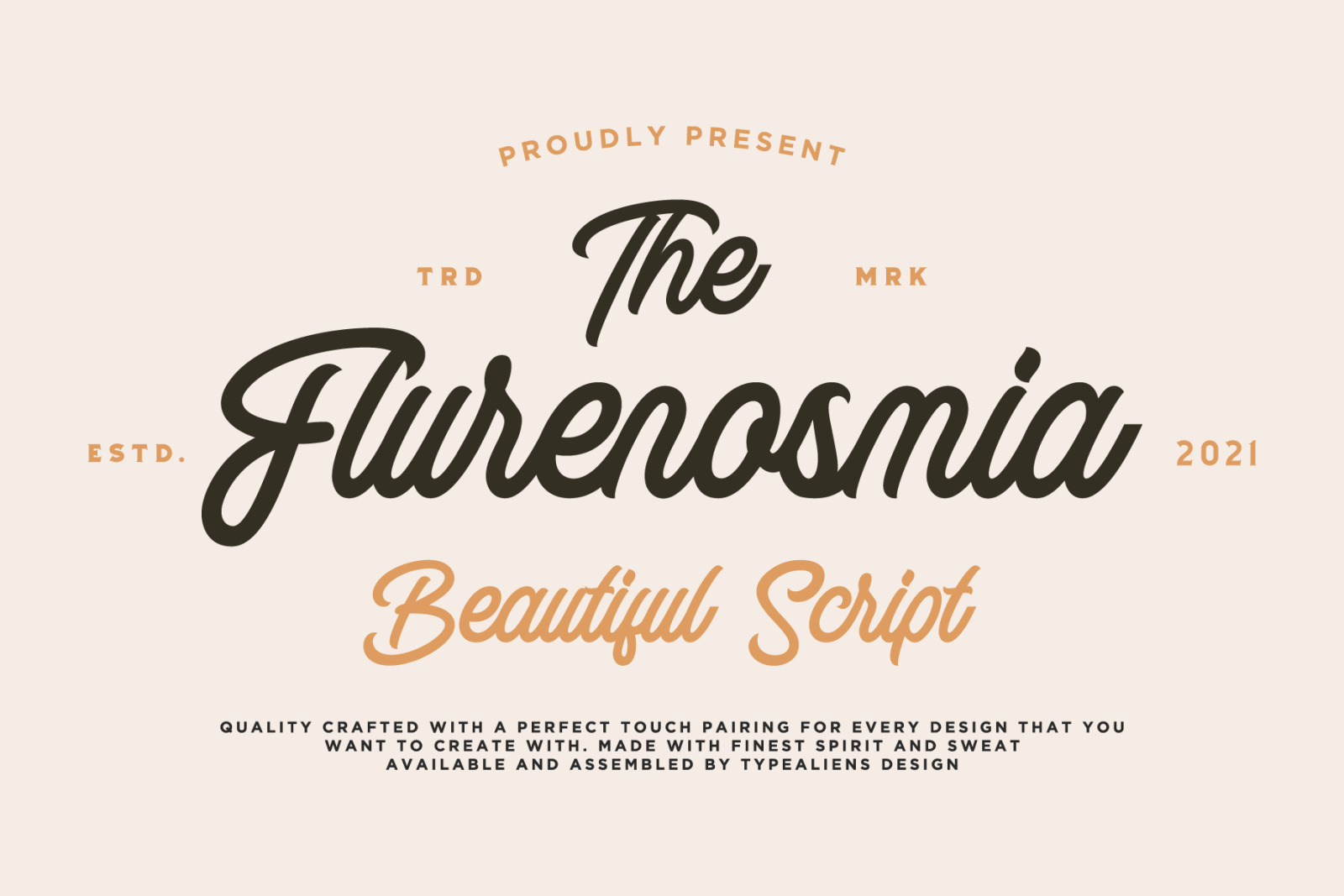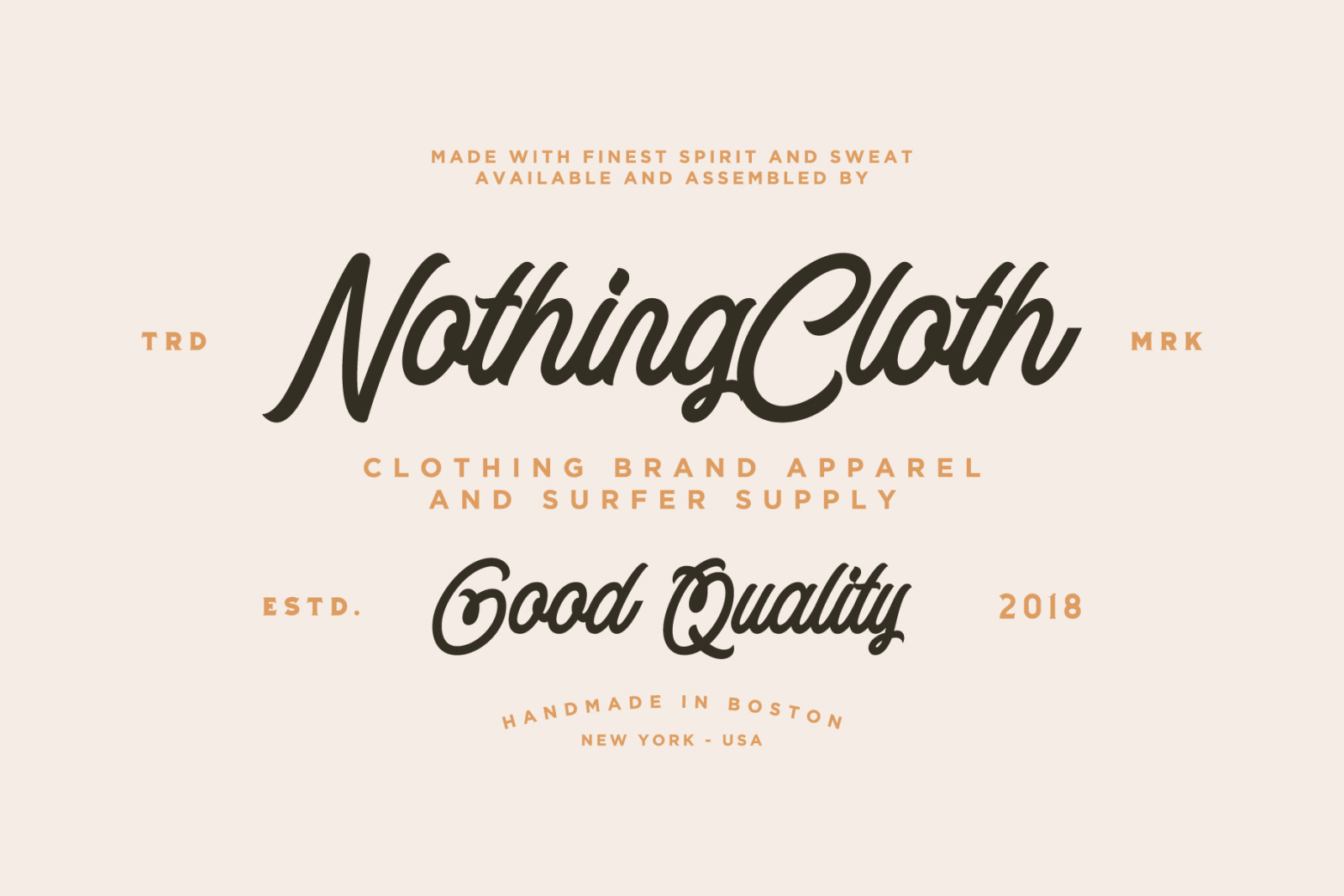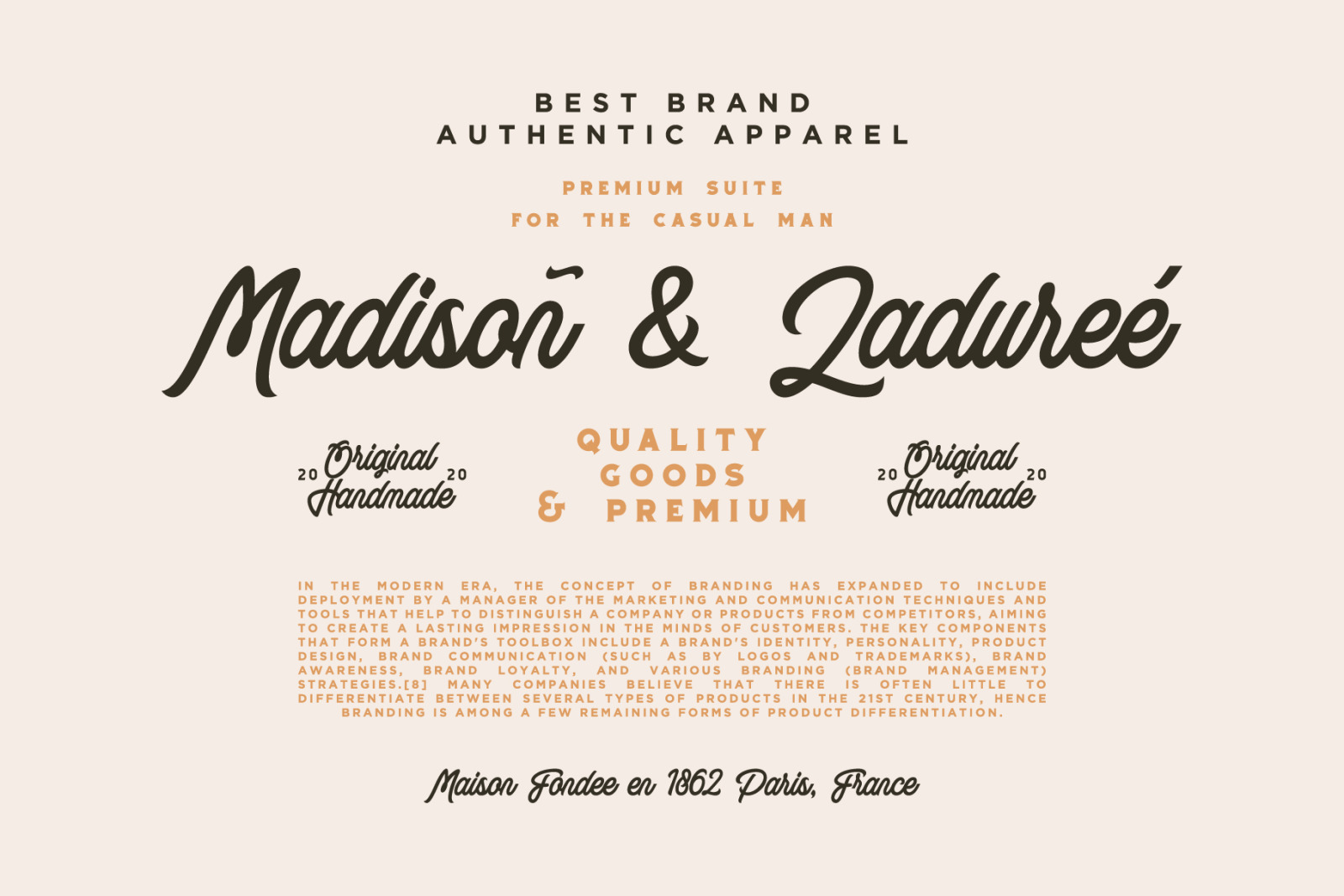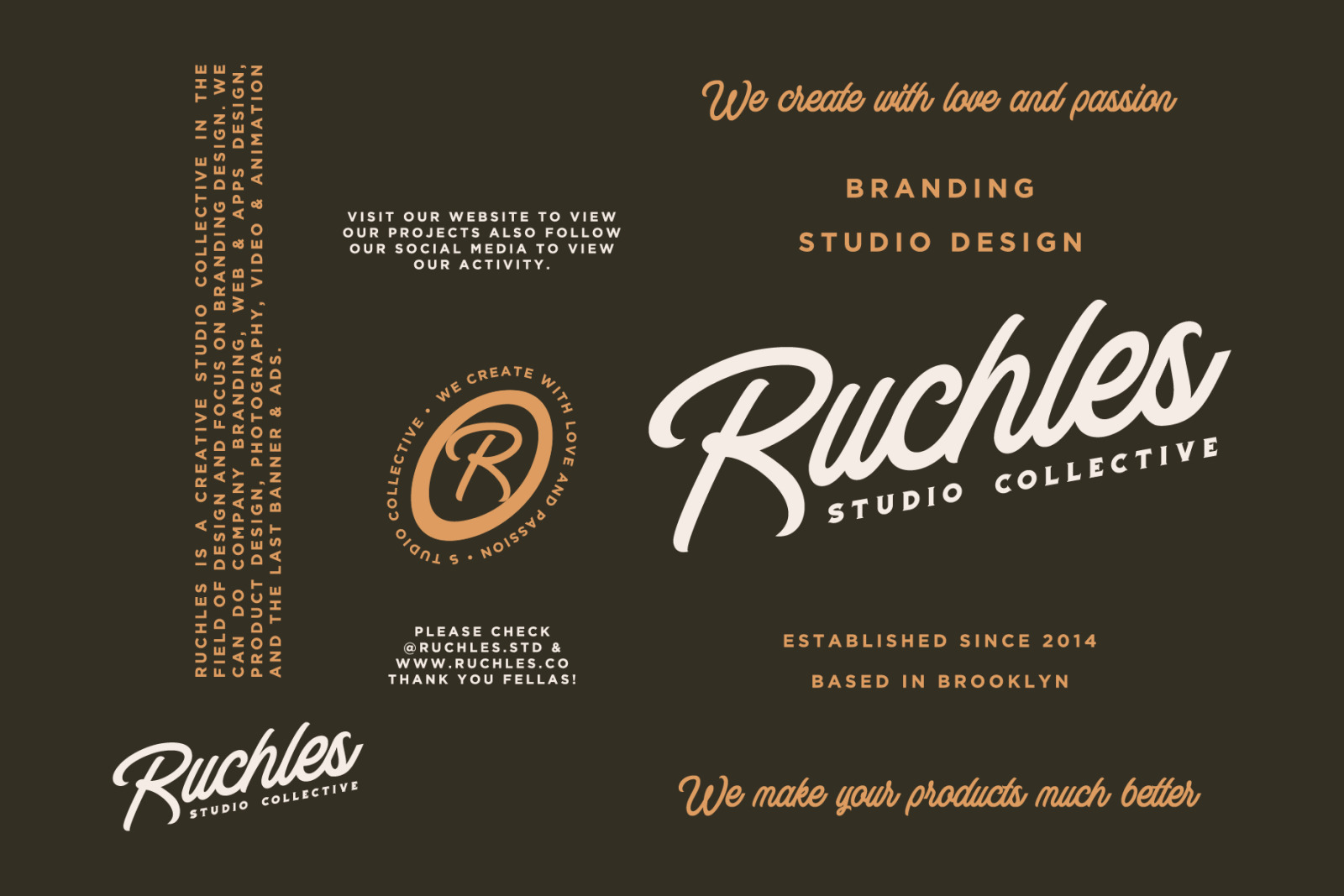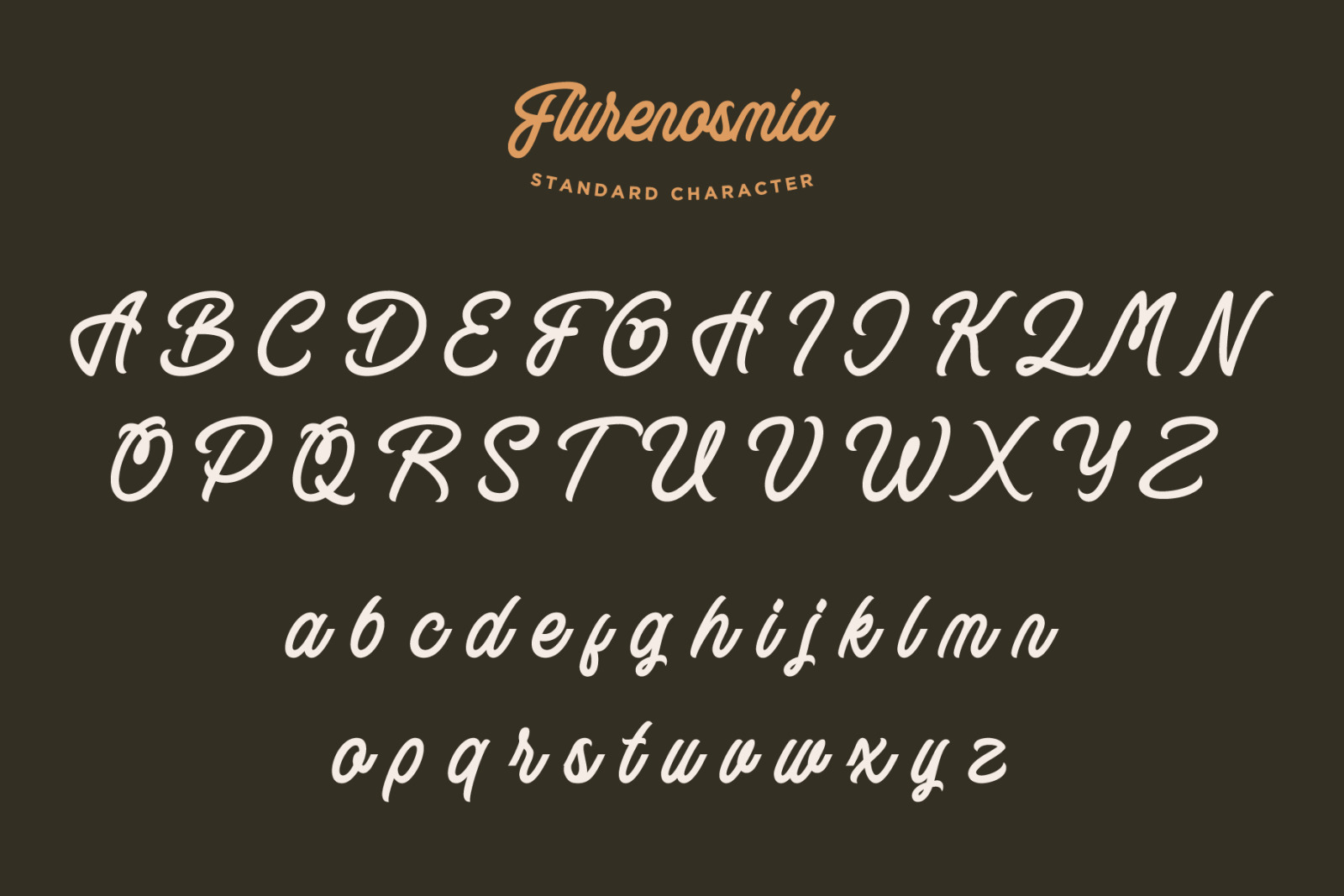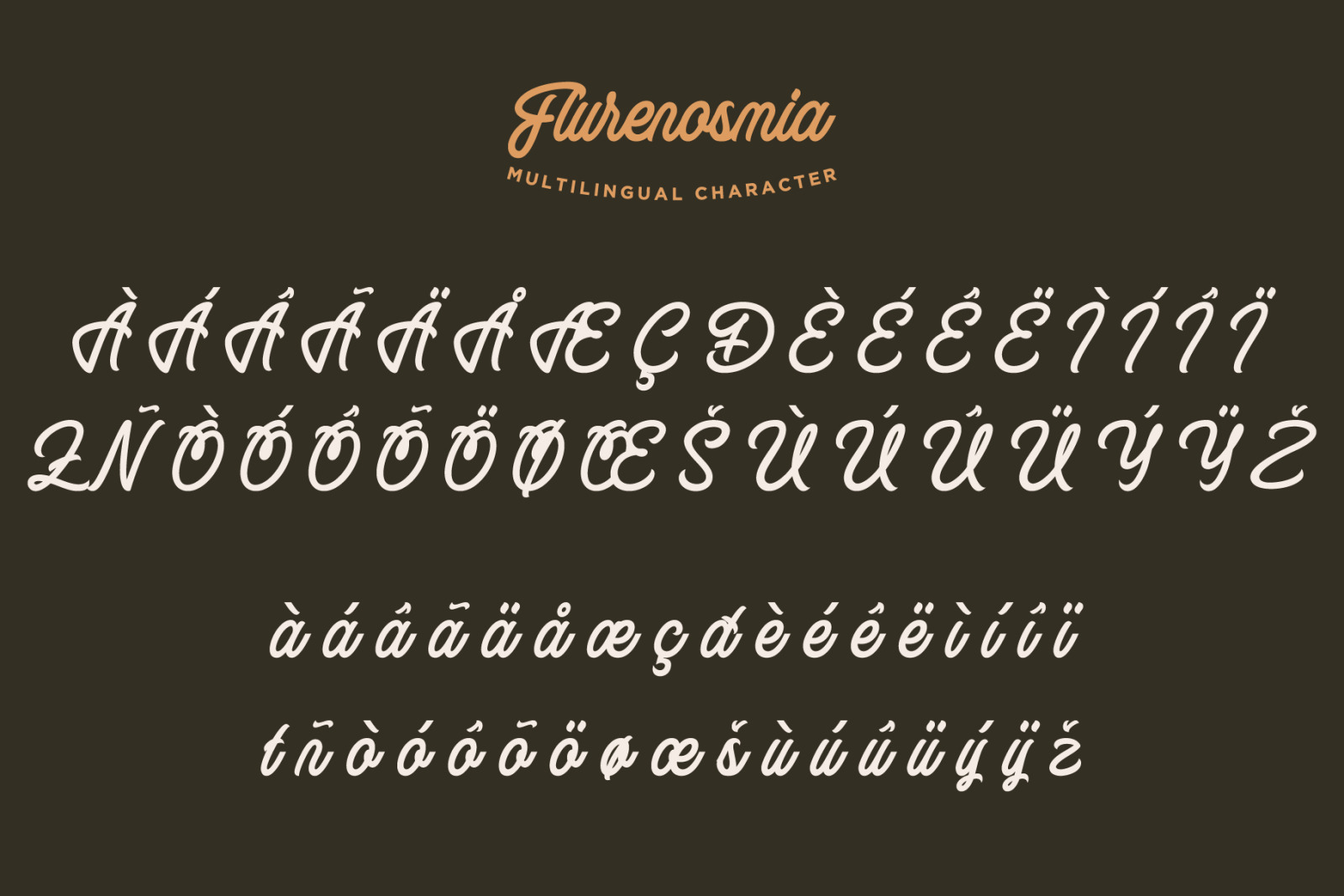
Flurenosmia Font
FLURENOSMIA is a very pretty script font, with neat shapes similar to monoline but with slightly sharp stroke ends. It is suitable for elegant and modern branding, and suitable for your brand's social media design. It can also be used for wedding invitation designs or other designs that require a graceful and beautiful style.